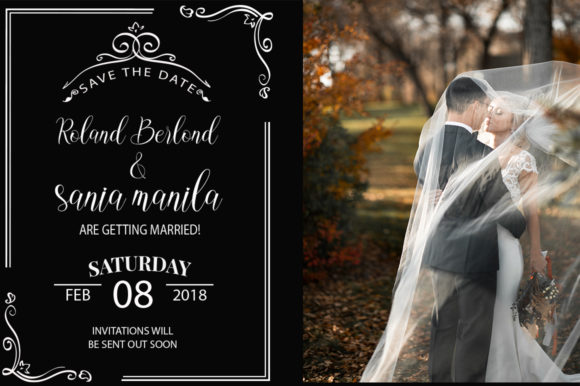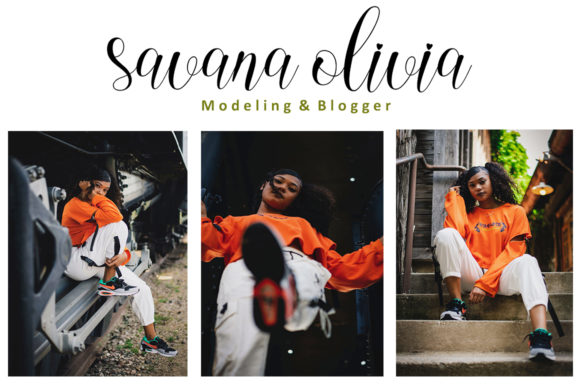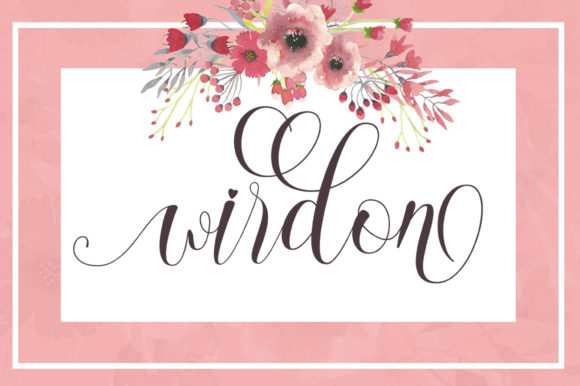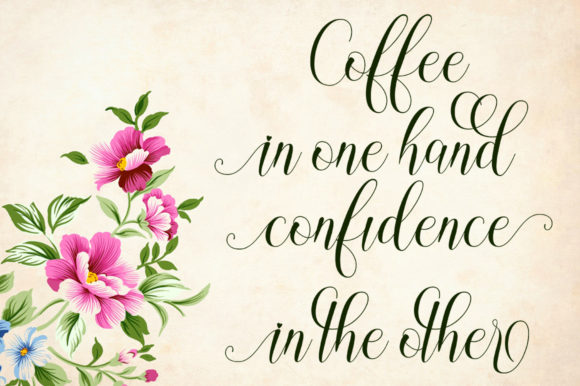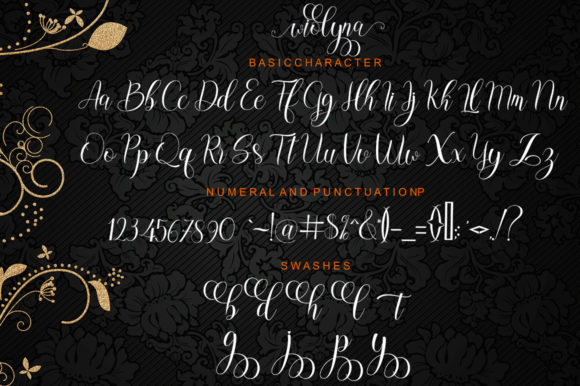
About Wiolyna Font
Wiolyna is a sweet, elegant handwritten font. The playful rounded characters make it the perfect font for creating lovely art.This font is PUA encoded which means you can access all of the glyphs and swashes with ease! It features a varying baseline, smooth lines, gorgeous glyphs and stunning alternates.